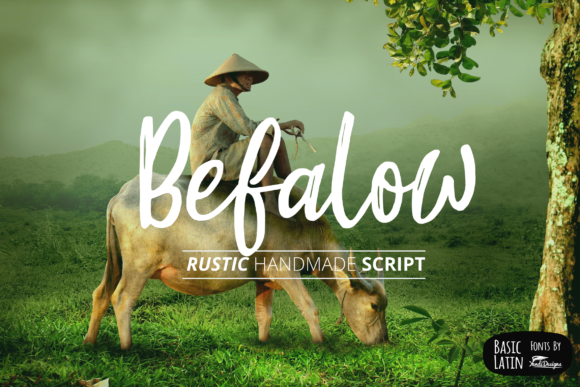
Journey into the realm of artistic expression with Befalow Font, a captivating script that weaves a spell of elegance and charm. Touched by the hand of YandiDesigns, this exquisite creation transforms your designs into breathtaking masterpieces. With Befalow Font as your muse, unleash your imagination and let your creativity soar.
Immerse yourself in the world of Befalow Font, a script font that dances across the page with grace and fluidity. Its delicate strokes and playful curves evoke a sense of timeless beauty, adding a touch of sophistication to your projects. Whether you're crafting logos, designing book covers, or creating captivating product presentations, Befalow Font elevates your work to new heights.
Step into the spotlight with Befalow Font, the script font that commands attention and leaves a lasting impression. Its enchanting aura magnetizes your audience, drawing them into your designs and captivating their senses. With Befalow Font, you'll create visual experiences that resonate with your audience and leave them yearning for more.
With Befalow Font, transcend the boundaries of ordinary and embrace the realm of the extraordinary. This script font is a catalyst for innovation, igniting your creative spark and transforming your designs into works of art. Let Befalow Font be your guide as you explore uncharted territories of design, leaving your audience spellbound and breathless.
Unlock the power of Befalow Font, the script font that captivates hearts and minds. Its ethereal essence adds a touch of magic to every project, enchanting your audience and leaving them under your creative spell. With Befalow Font, you'll create designs that transcend time, designs that linger in the memory and become a testament to your artistic prowess.